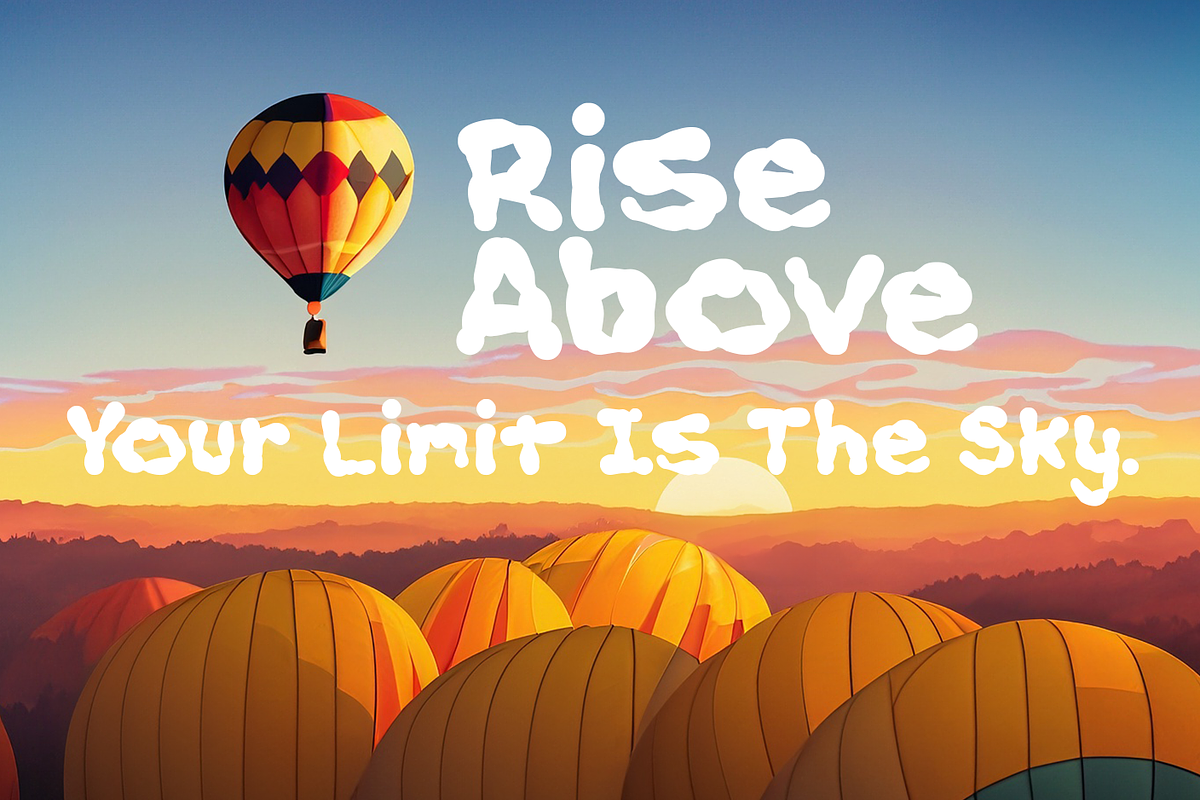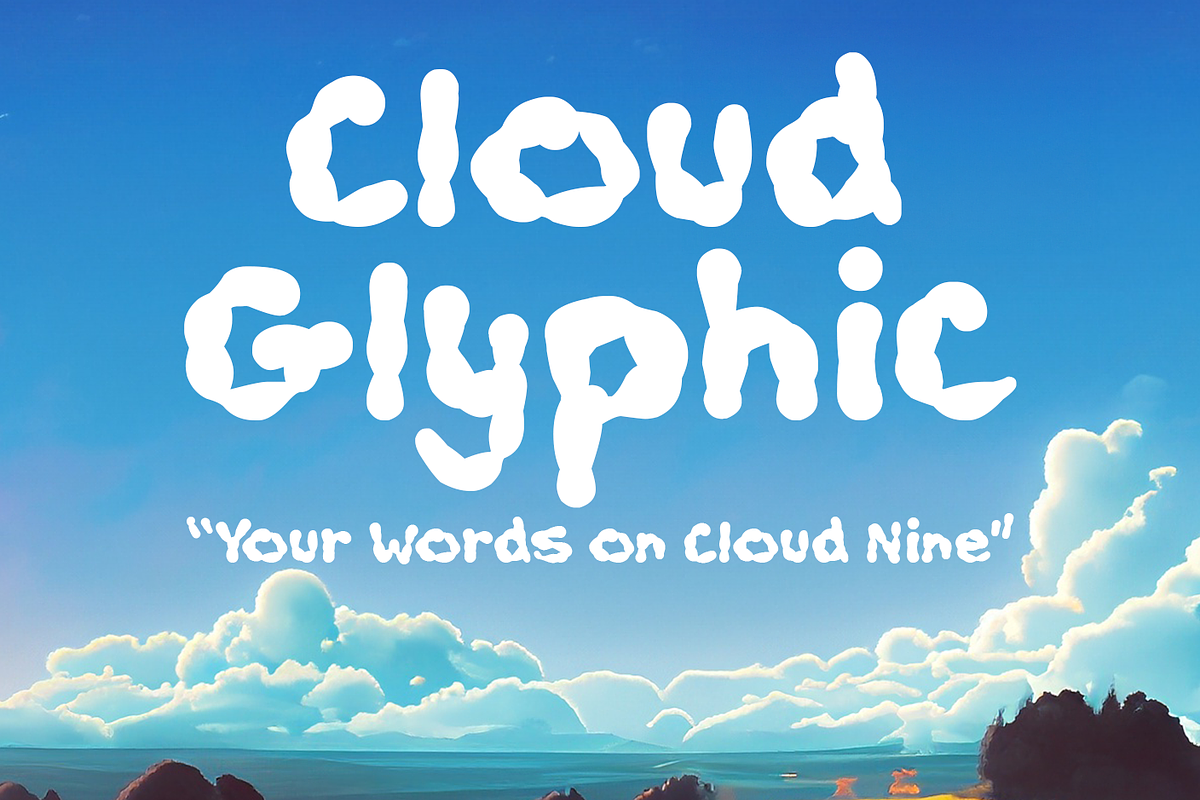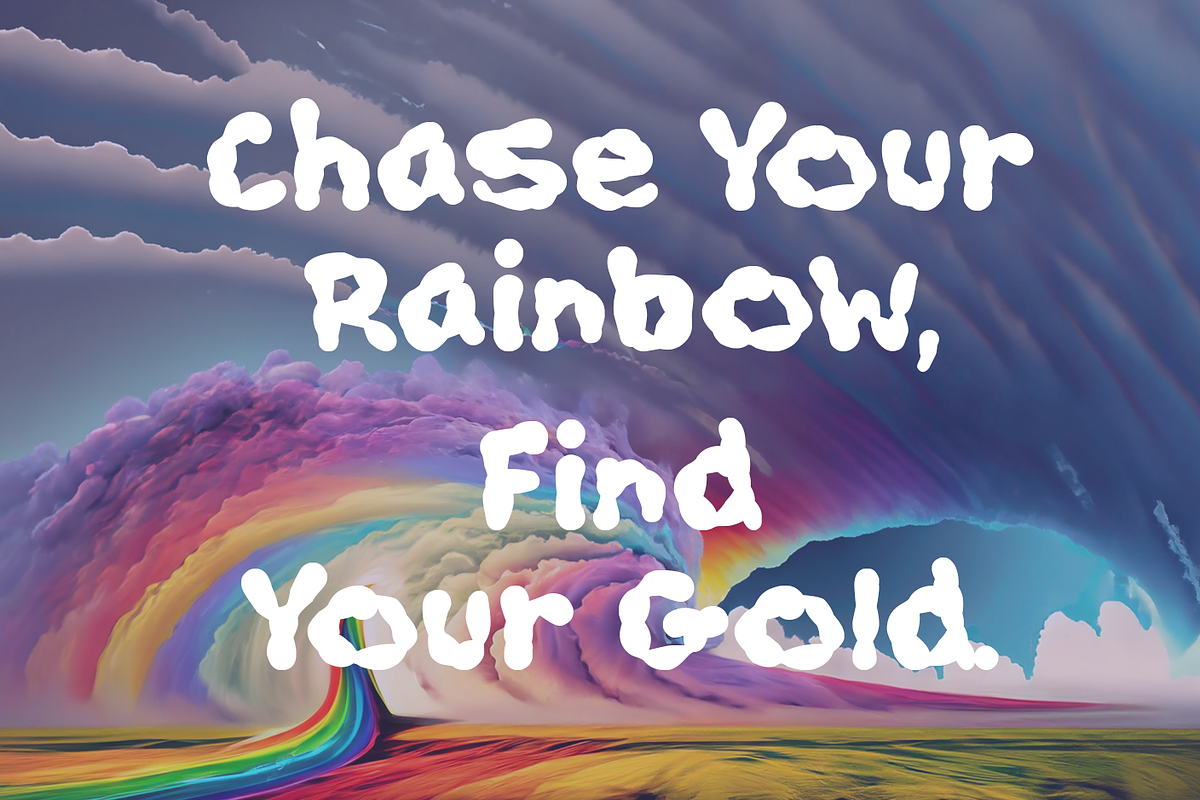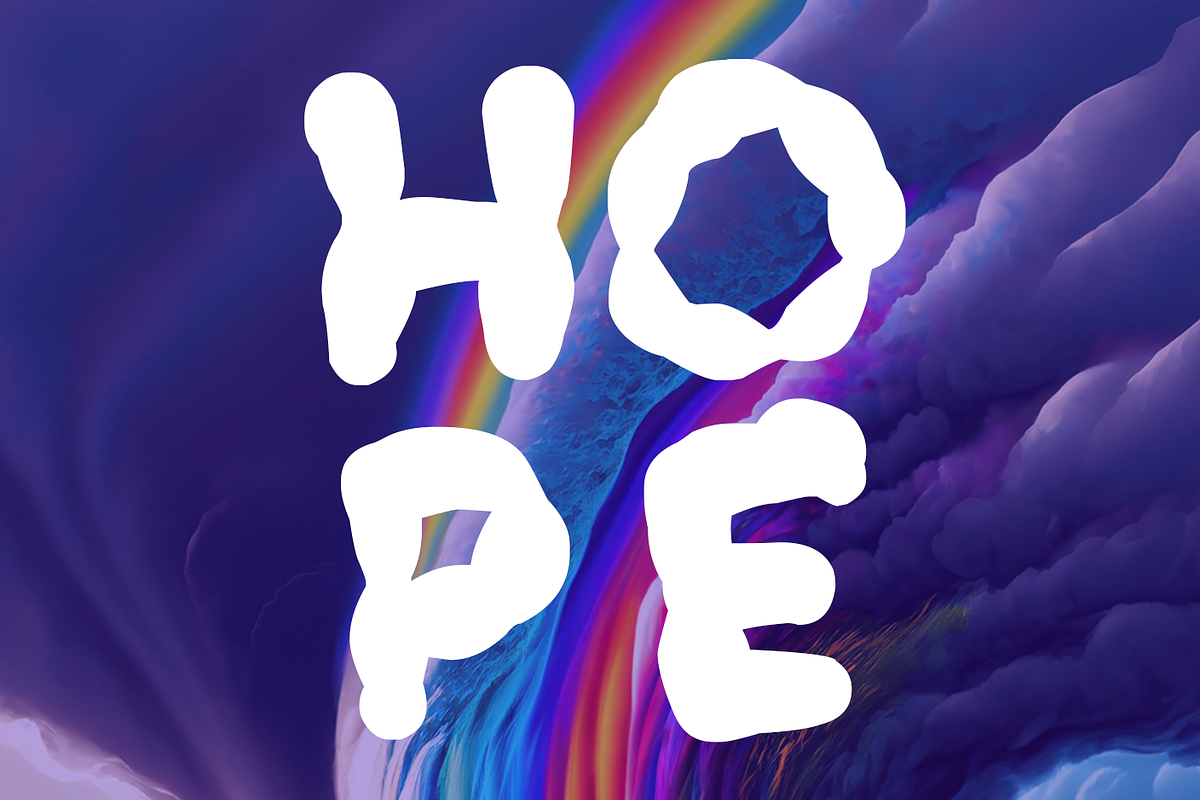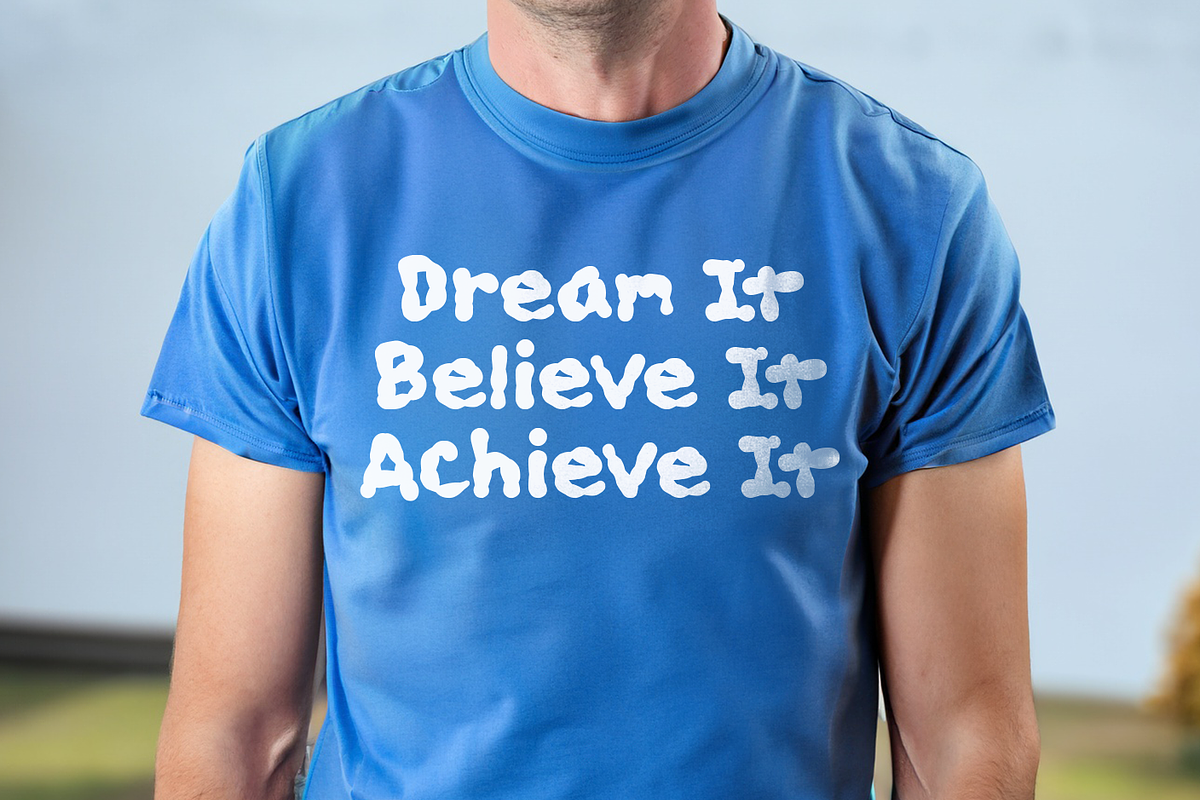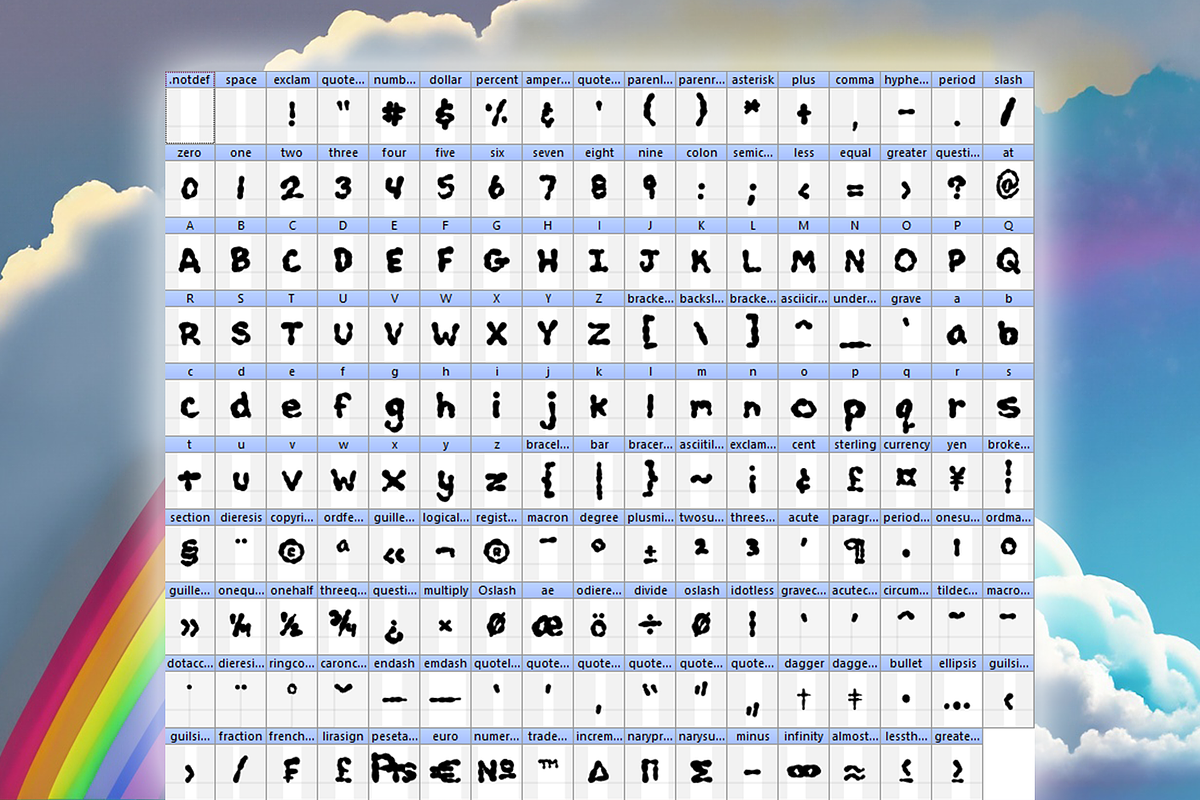
CloudGlyphic Font
CloudGlyphic - The Font as Light as Air
CloudGlyphic—a typeface designed to take your creative projects sky-high! Inspired by the transient beauty of clouds, CloudGlyphic combines artistic aesthetics with everyday functionality.
- 165+ Characters: A rich character set that includes letters, numbers, symbols, and custom glyphs for a wide array of design needs.
- Ethereal Design: With its cloud-like curves and ligatures, this font adds a dreamy atmosphere to your projects.
- Optimized Readability: Designed to be legible at various sizes, making it perfect for both print and digital mediums.
- Versatile Applications: Ideal for branding, book covers, websites, marketing materials, and much more!
Use Cases:
- Modern Branding: Give your brand a fresh, airy look and feel.
- Fantasy Literature: Captivate readers with a typeface that transcends the ordinary.
- Digital Presence: Make a statement online with headers and text that draw the eye.
- Event Styling: Create invitations and collateral for events that feel like a daydream.